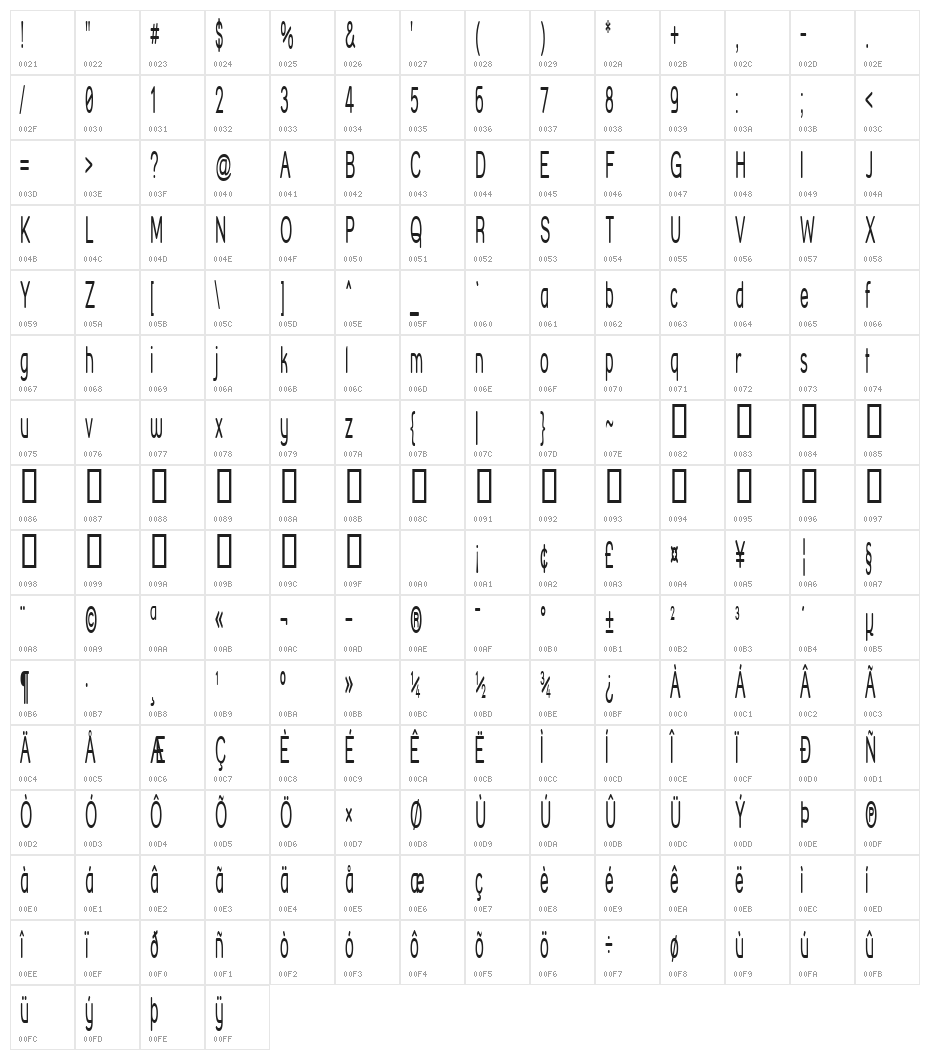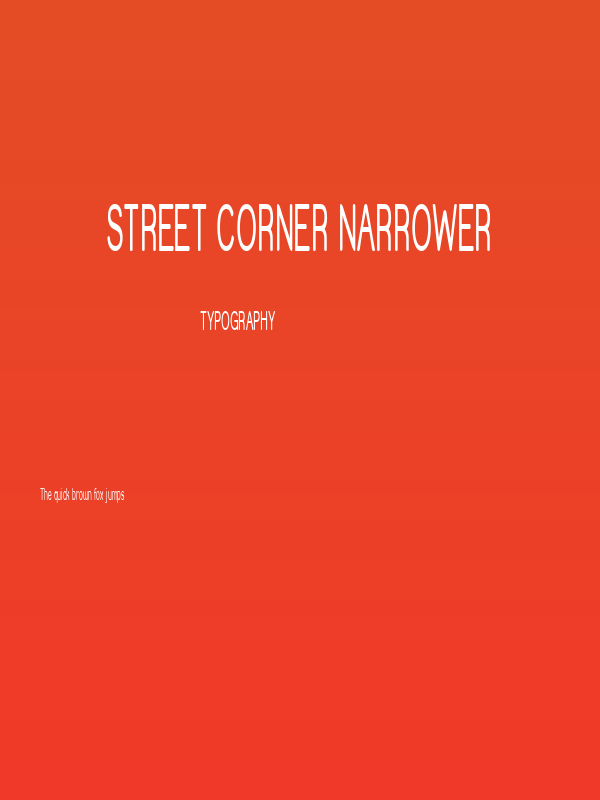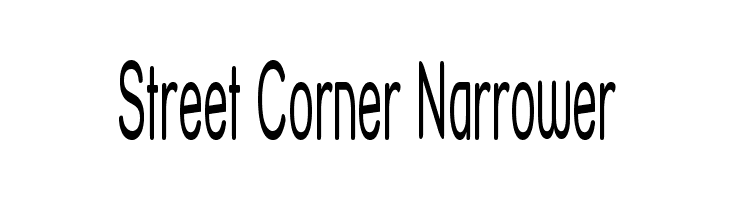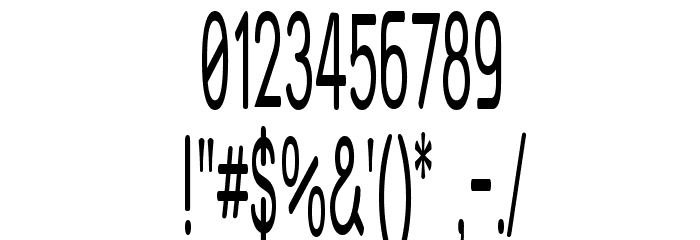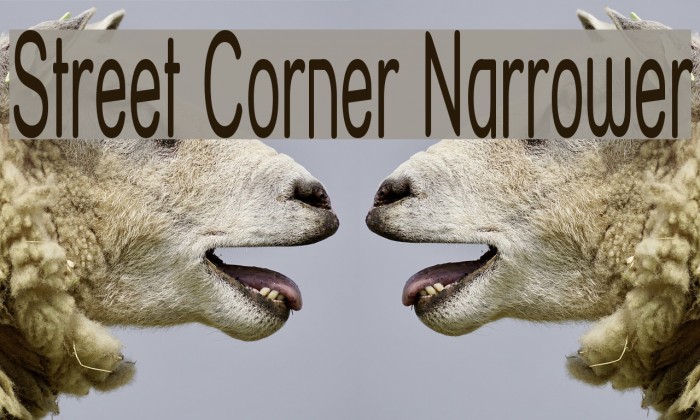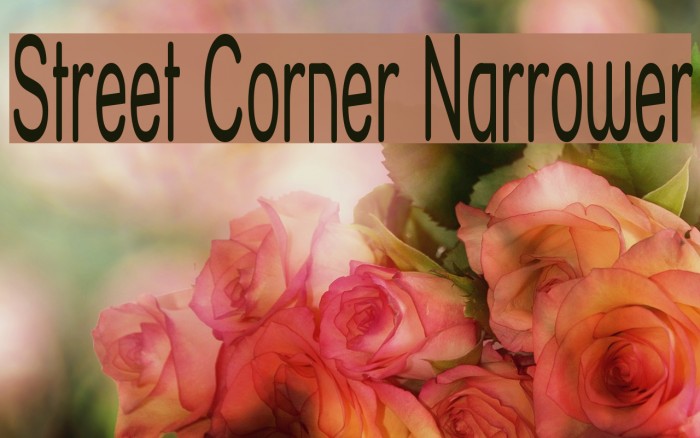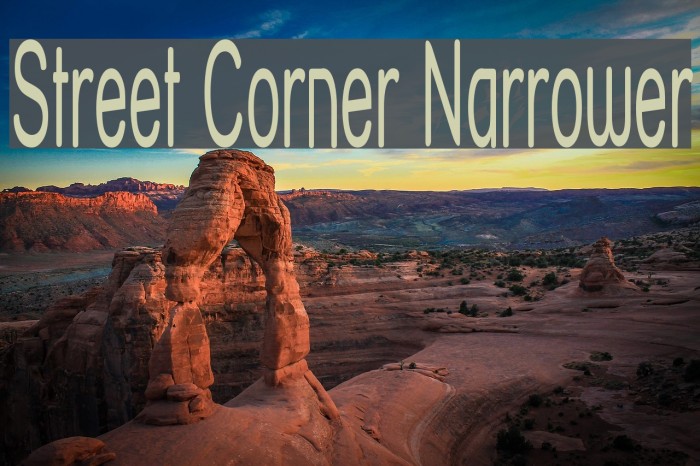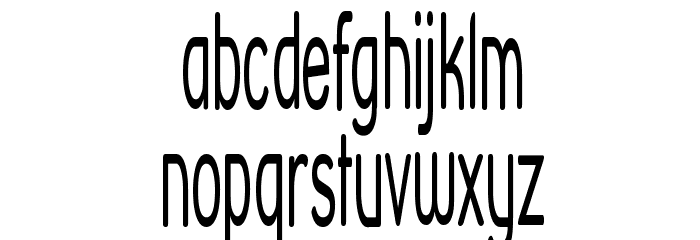
Street Corner Narrower Font
Street Corner Narrower Description
This font features a clean and modern sans-serif style with narrow letterforms that create a sleek and contemporary appearance. The characters are uniformly structured, with consistent stroke widths that contribute to a harmonious and balanced look. The font's design emphasizes clarity and readability, making it suitable for various applications. Its narrow width allows for efficient use of space, making it ideal for settings where space is limited. The font includes a full set of uppercase and lowercase letters, numerals, and a variety of punctuation marks and special characters, ensuring versatility in design projects.
| Width | Condensed |
| Use Case | Headlines, Body text, Logos |
| Proposed Projects | Ideal for branding, editorial design, web design, and signage where a modern and space-efficient typeface is needed. |